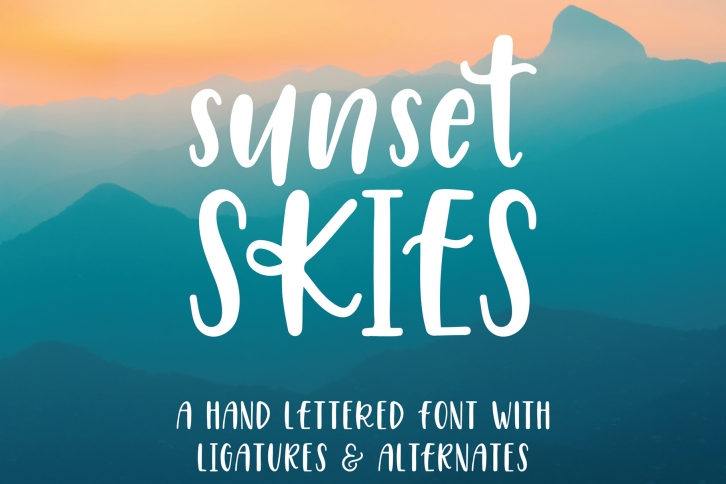
Sunset Skies Handwritten Sans Serif Font Download
Sunset Skies Handwritten Sans Serif is a beautiful font that was designed by Jordyn Alison Designs. It's a great choice for designers and creatives who need such a font. It was released on August 6, 2018 and the file size is 8.71 MB. Sunset Skies Handwritten Sans Serif may give a more youthful, expressive and casual look to your project. It is a very beautiful, refined, elegant, and high-quality font.